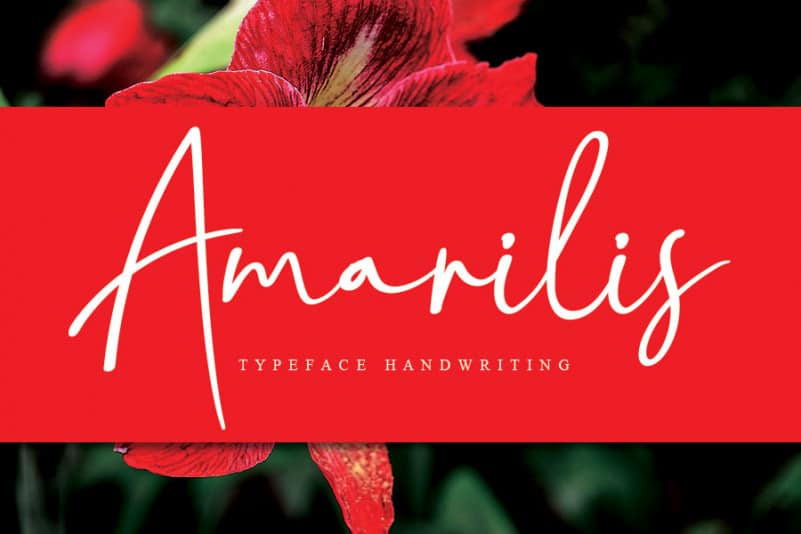
Amarilis Script Font
Amarilis Script Font is a relaxed and delicate handwritten font. Whether you’re looking for fonts for Instagram or calligraphy scripts for DIY projects, this font will turn any creative idea into a true piece of art!
the latest style letters are perfect for wall displays, wedding invitations, social media post logos,
advertisements, product packaging, product designs, labels, photography, watermarks, invitations, stationery,
and any project that requires taste handwriting.